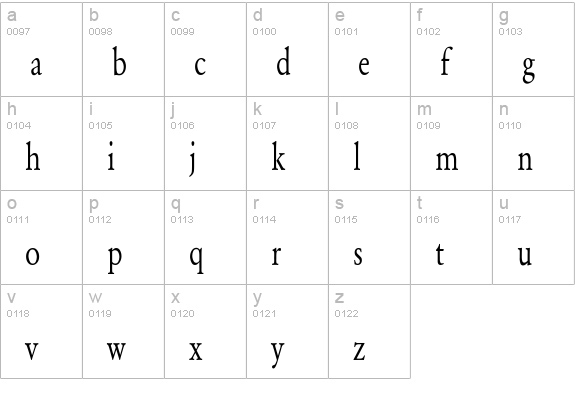
Garamond-Normal Condensed is the standard, neutral, condensed-width variant in the Garamond typeface family \xE2\x80\x94 well suited to general body text, paragraphs, and standard typographic work.
Garamond-Normal Condensed font exudes elegance and sophistication with its slim and streamlined design. Its narrow letterforms give a modern touch to the classic Garamond style, making it perfect for projects that require a sleek and professional look. The font's balanced proportions and delicate serifs create a harmonious and refined aesthetic that is sure to elevate any design. Best of all, Garamond-Normal Condensed font is available for free download at FontsMarket.com. This means you can easily access this versatile typeface for your personal or commercial projects without any cost. Whether you're working on branding materials, editorial layouts, or digital designs, Garamond-Normal Condensed font offers a timeless and sophisticated option that will surely make a lasting impression.